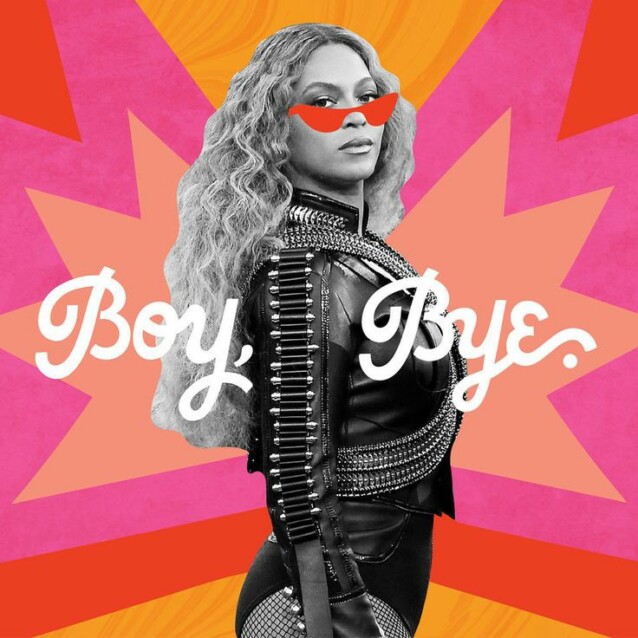
Boy Bye
This is not a font. it is a product of Illustrator.
Pay close attention to the letter "y", it is very different from being a font.
You can refer to the following similar fonts: Di Mare Regular Font